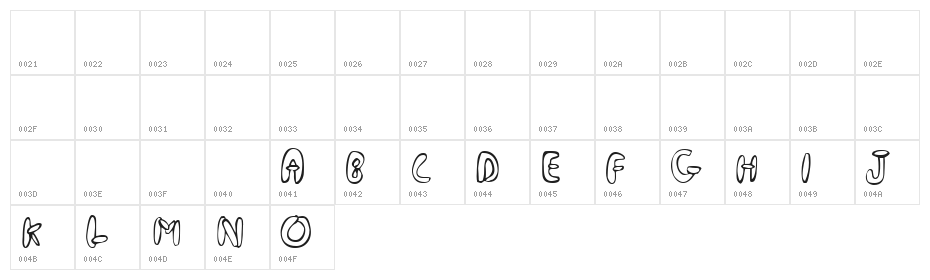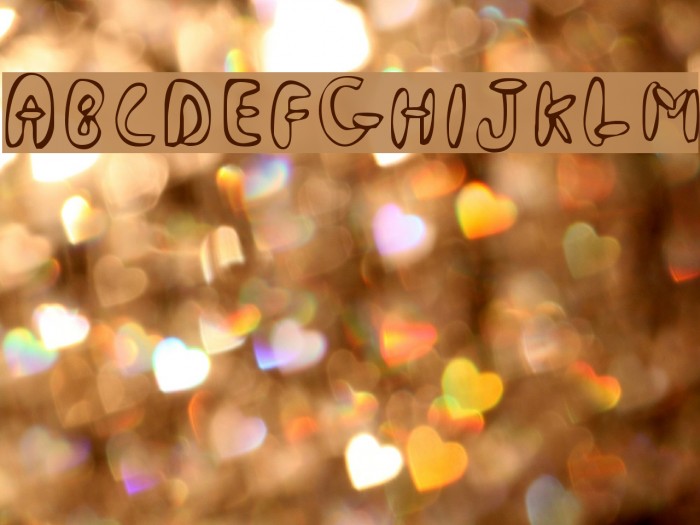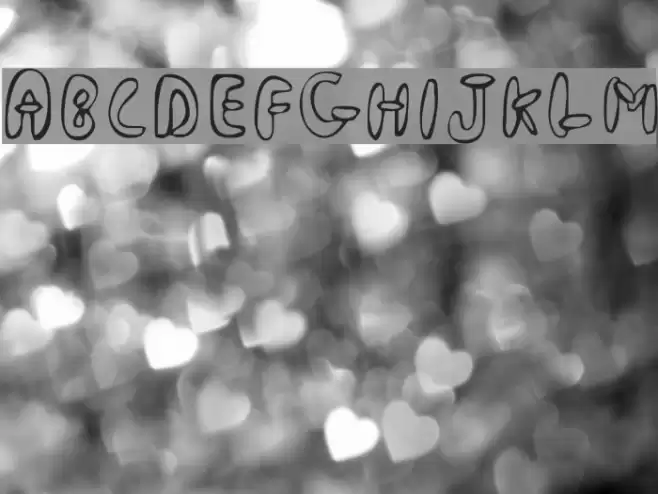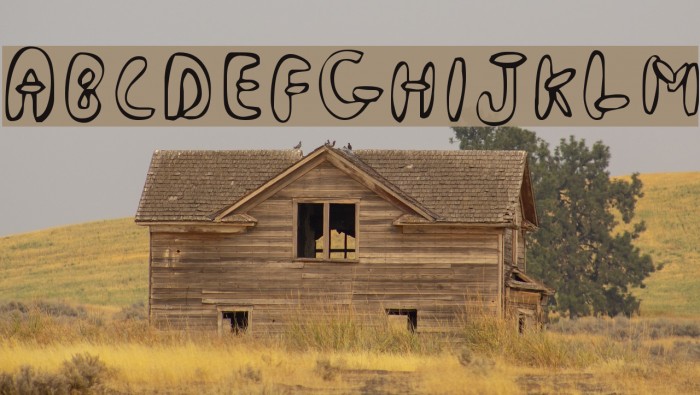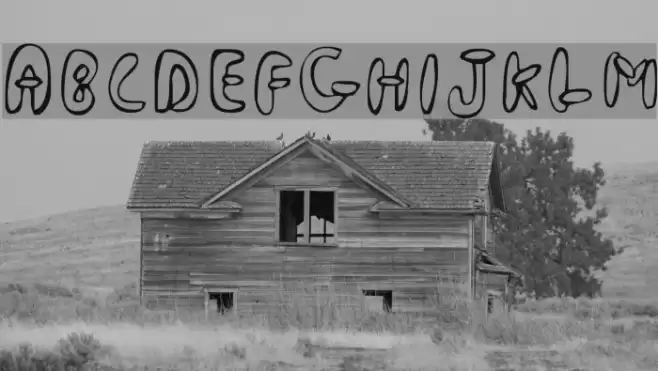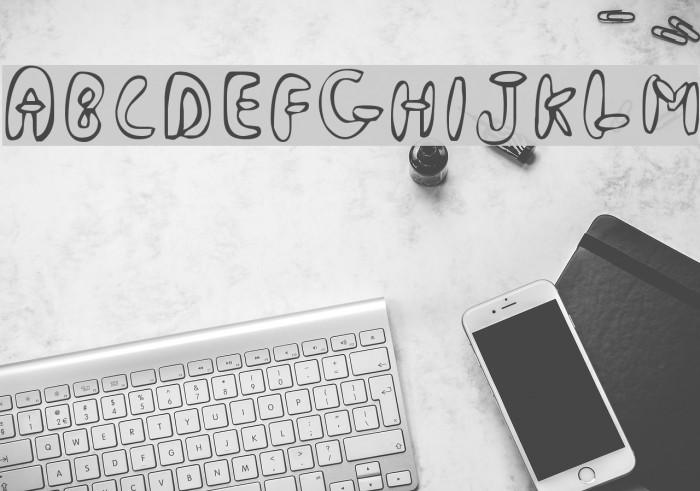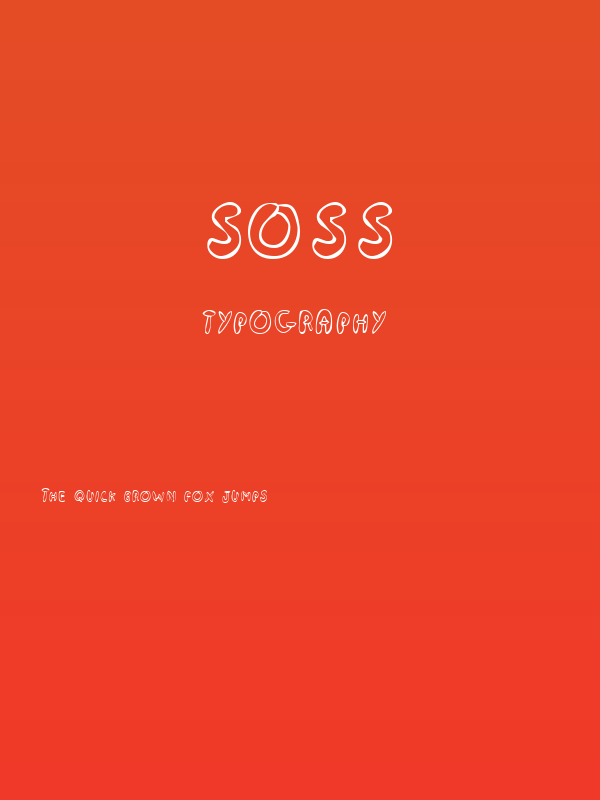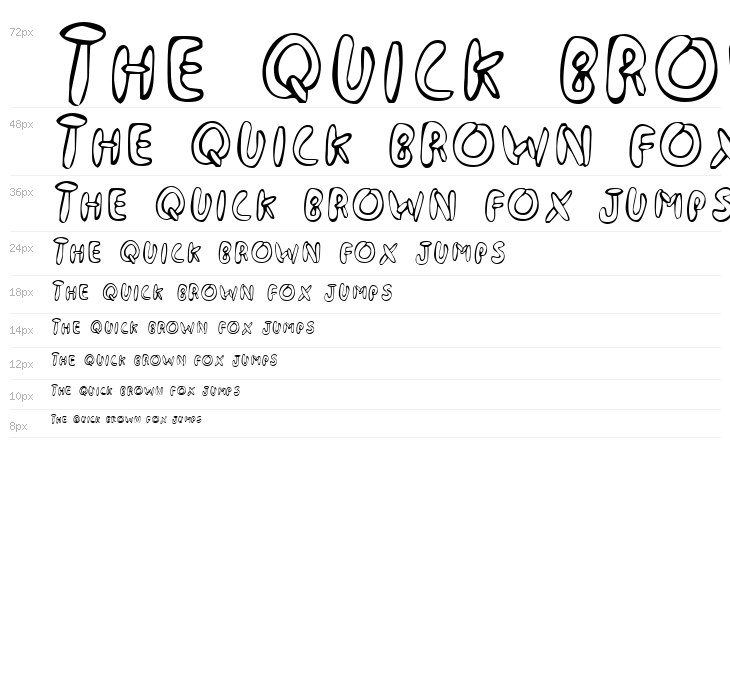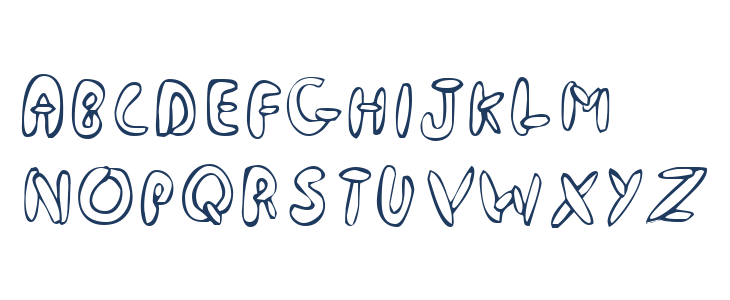
Soss Font
Soss Description
This font features a playful and bold design with a hand-drawn aesthetic. Each character is outlined with a thick, consistent stroke that gives it a three-dimensional appearance. The letters are rounded and slightly irregular, adding to the whimsical and informal feel. The uppercase and lowercase letters maintain a consistent style, with a slight slant that suggests movement. The numbers and special characters follow the same design principles, ensuring uniformity across the font. This font is ideal for projects that require a fun and engaging look, such as children's books, playful branding, or creative posters.